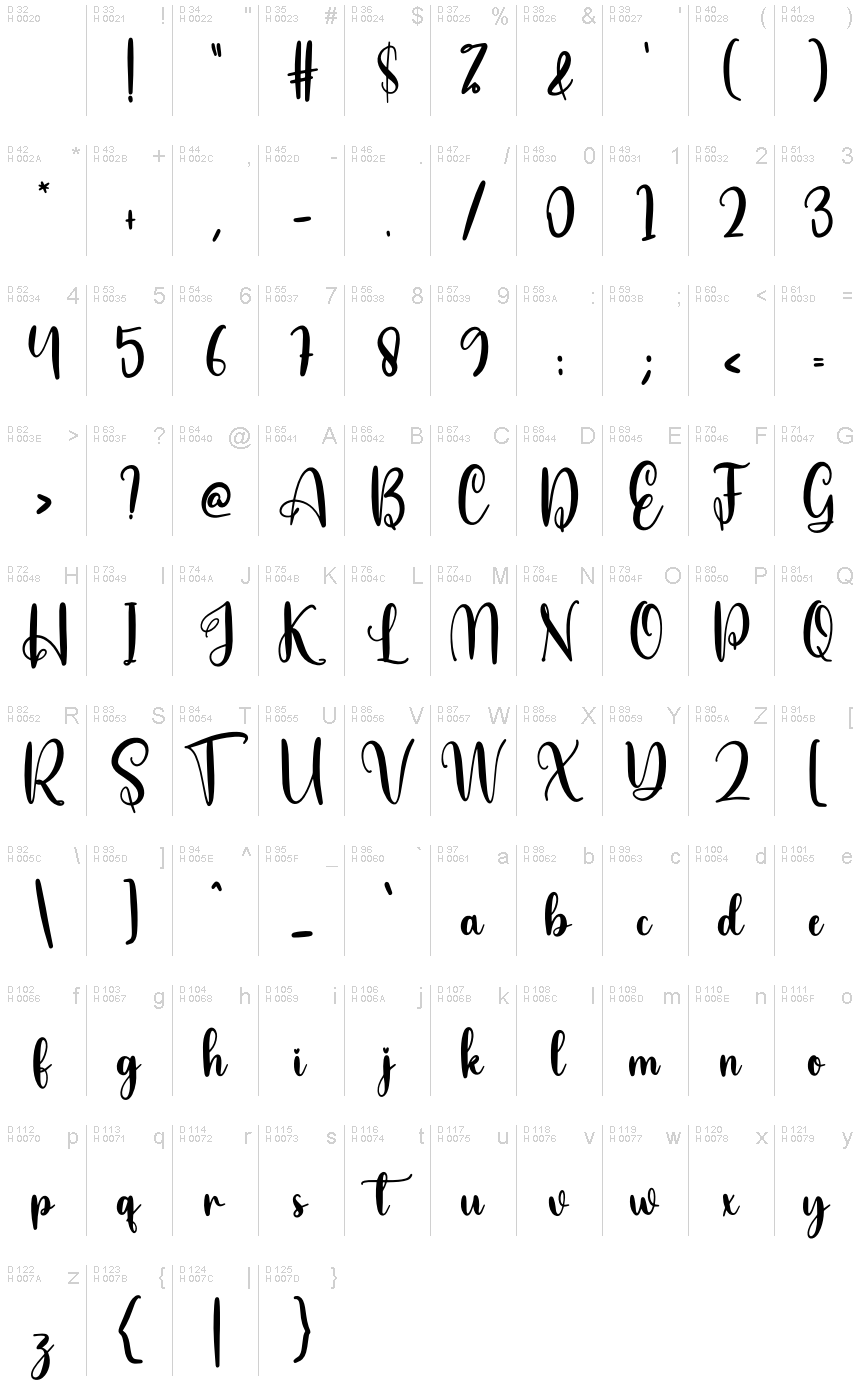
Ruralhome
Ruralhome font by Scratchones beautifully captures the charm of handwritten style, offering an organic and inviting aesthetic. Its flowing script and elegant curves create a sense of warmth and authenticity, making it perfect for projects that require a personal touch. This free font delivers a dynamic presence with its unique character structure, appealing to both modern and traditional design contexts.
Ideal for branding, invitations, logos, and more, Ruralhome font’s versatility enhances creativity while maintaining readability. Ready for download, this font invites designers to explore its potential in crafting memorable visual experiences.